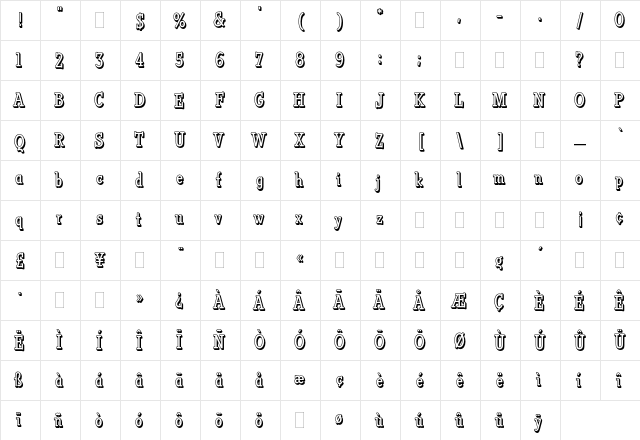
Vermont Plain
Design Context for Vermont Typeface
Vermont takes a measured approach to typography — its balanced proportions and neutral character make it a reliable workhorse for both digital and print work.